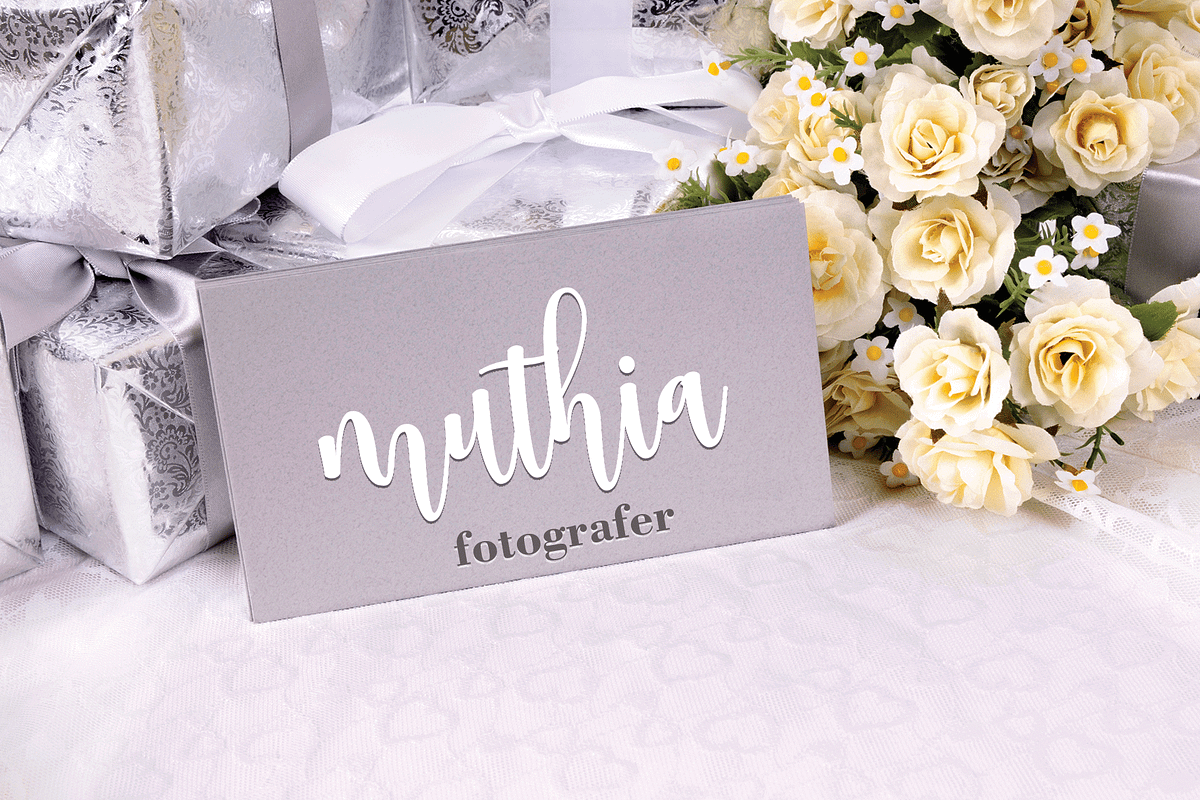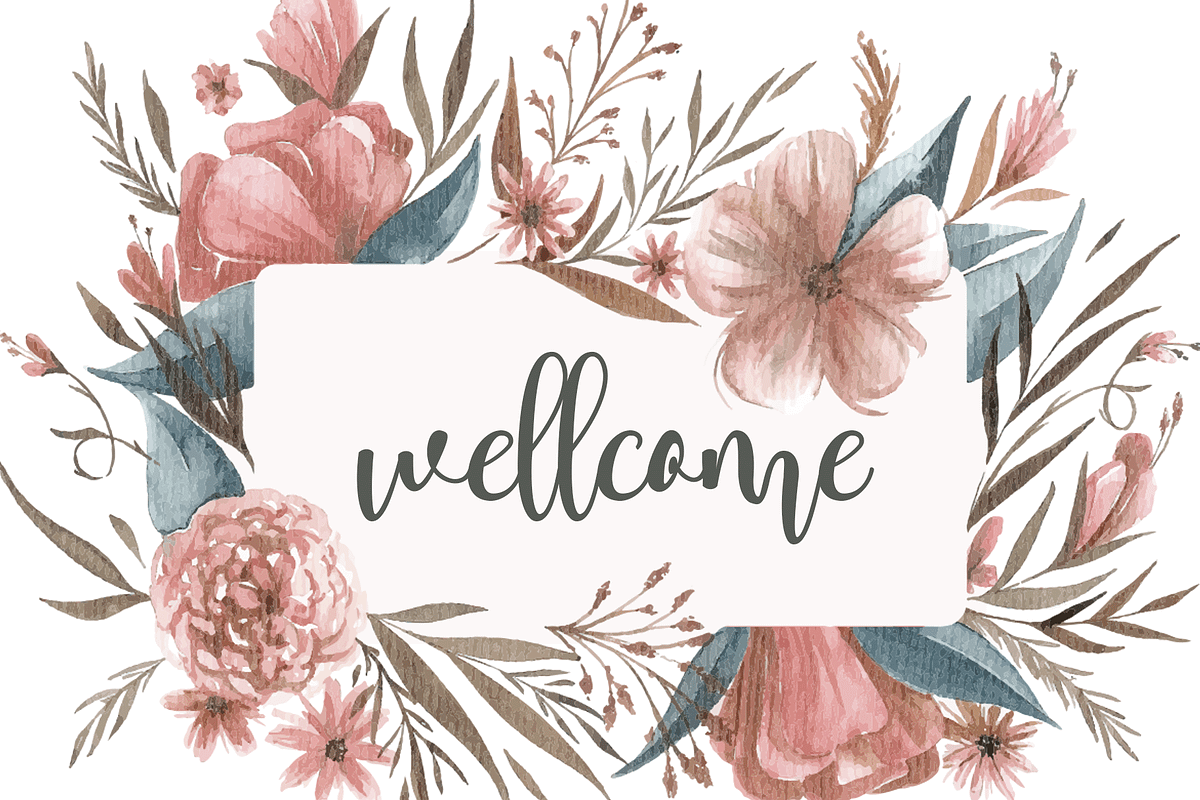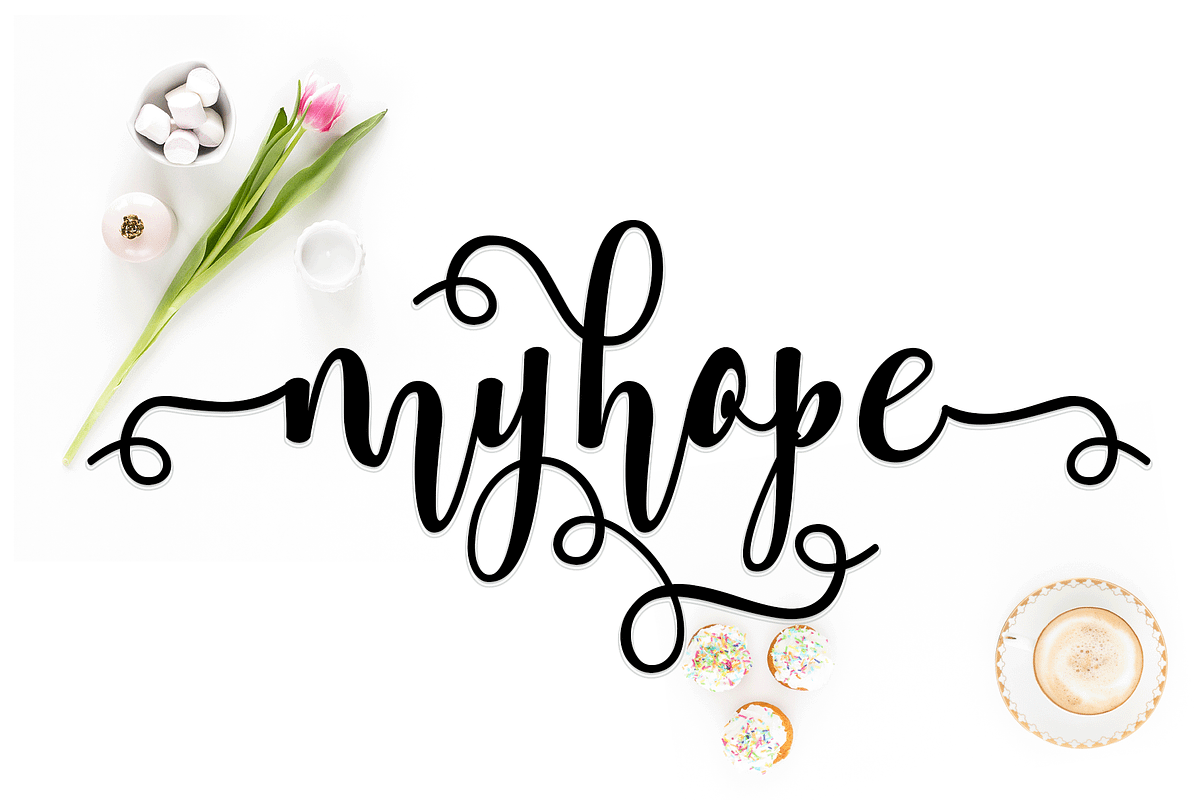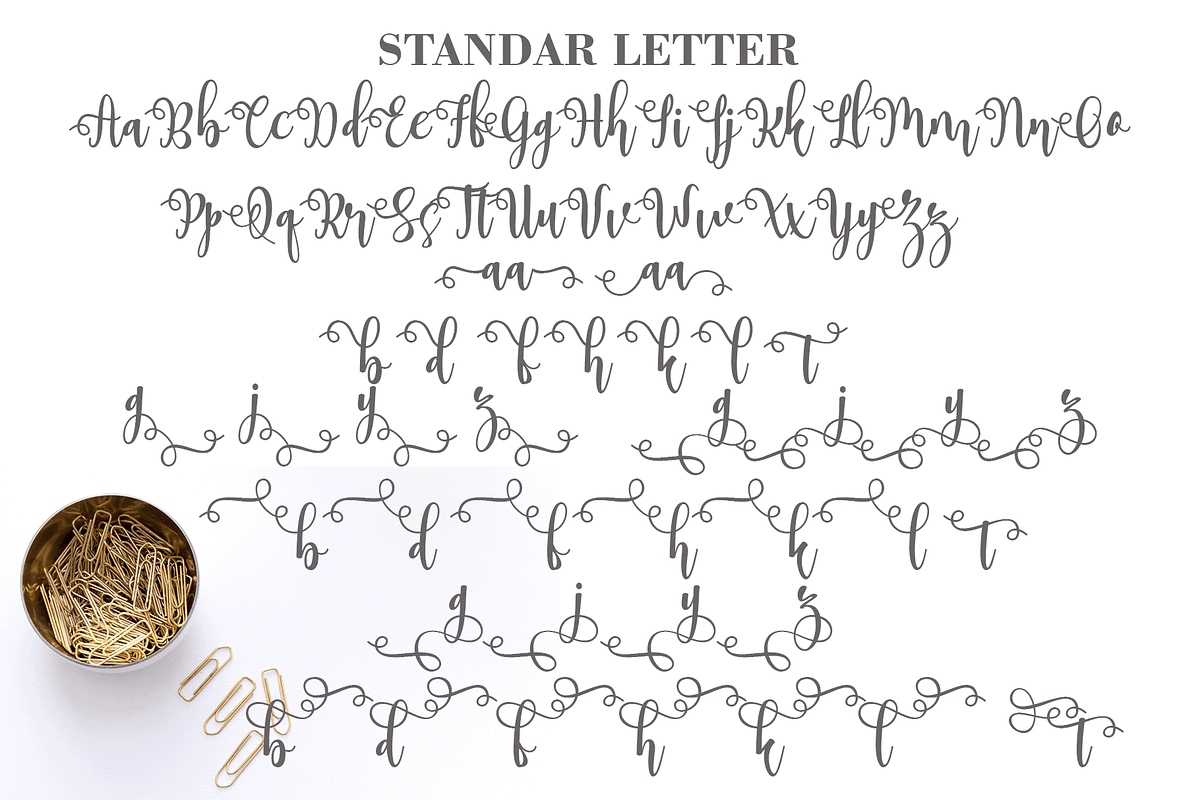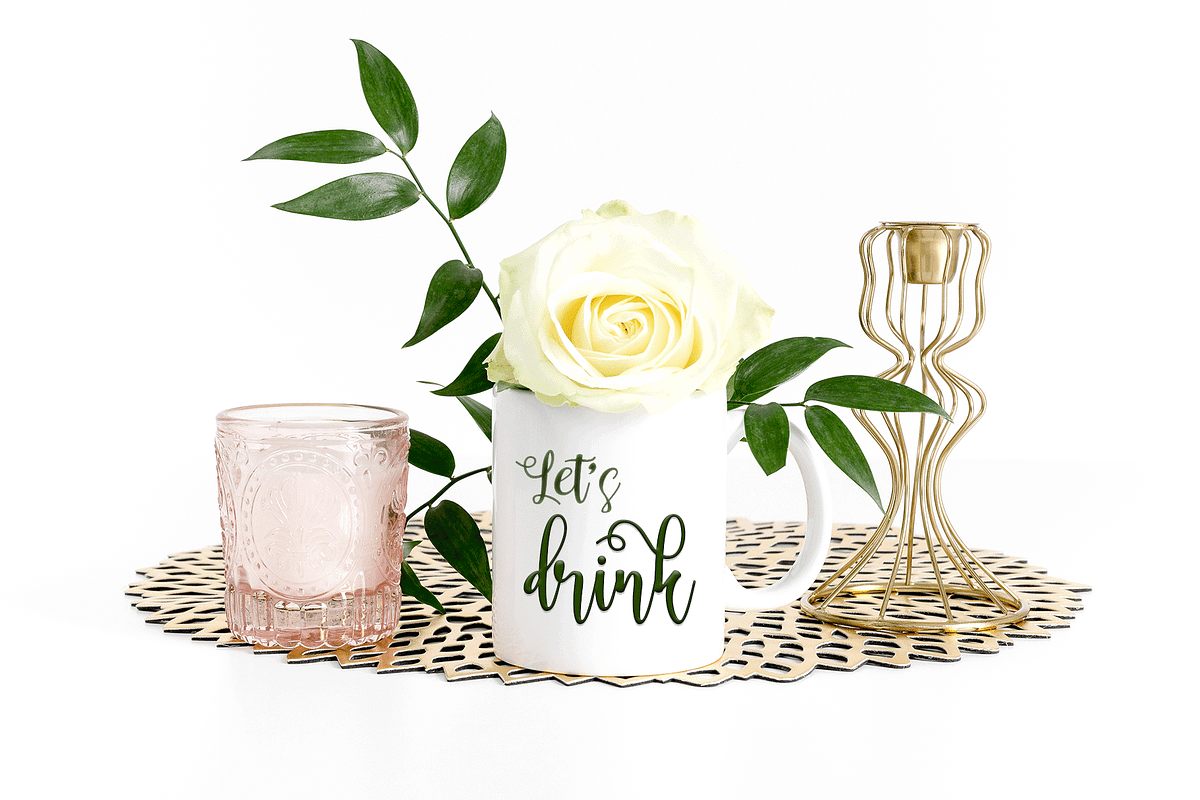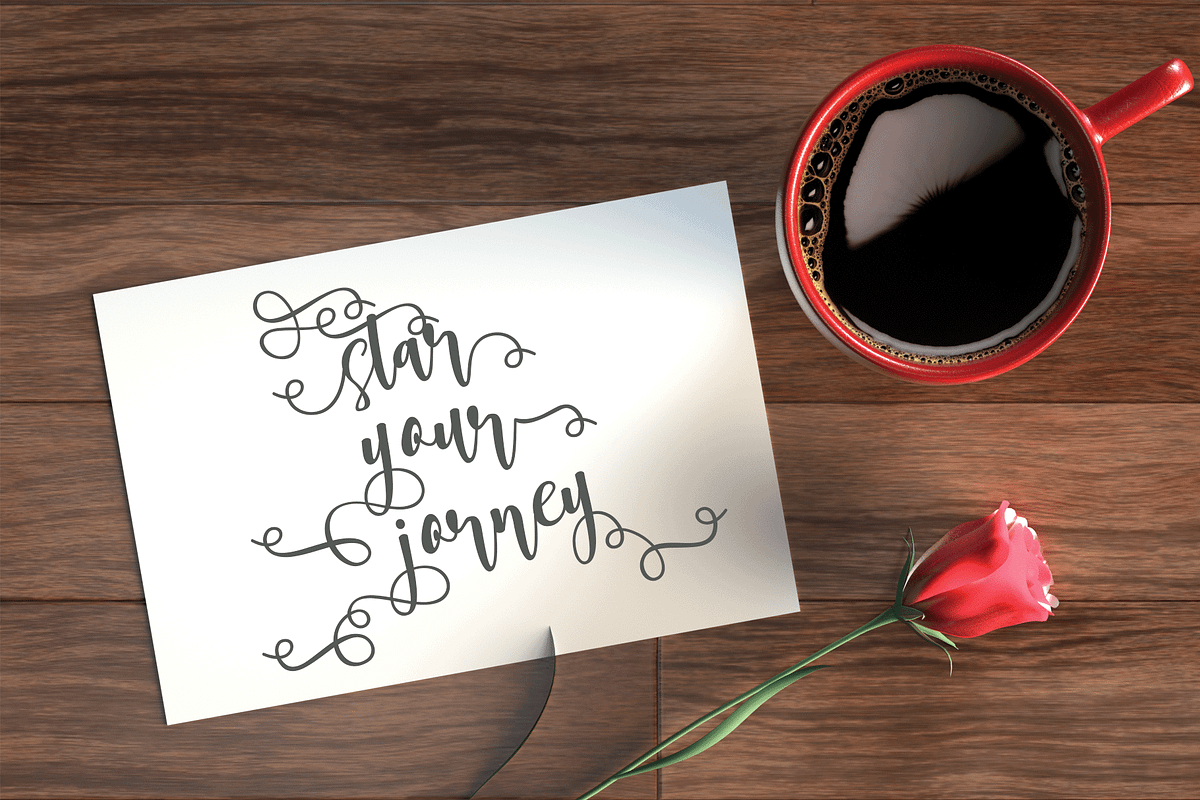
Myhope
Myhope is the perfect typeface for any type of your project with alternative fonts in both lowercase and uppercase and several types of underlines, such as advertisements, branding, quotes, wedding designs, graphic design, logos for online or offline businesses, photography, and more. -other. Make your business more beautiful!